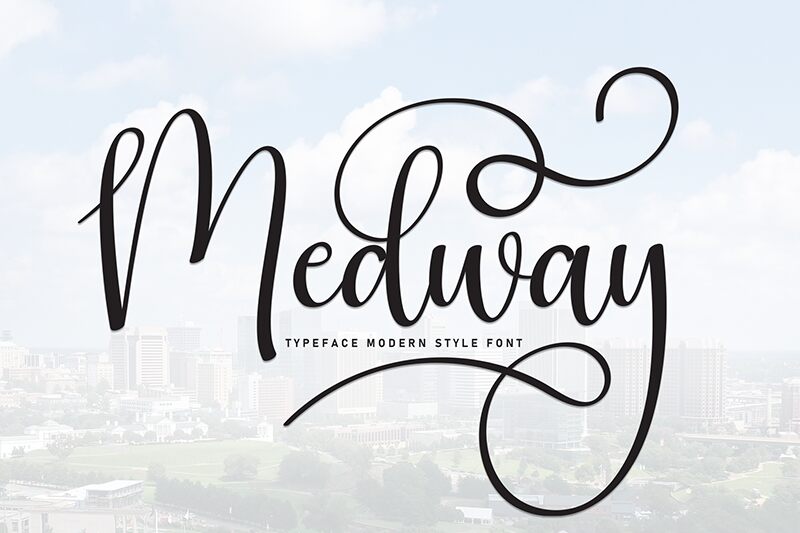
Medway
Medway font by Scratchones is a free handwritten font known for its elegant and flowing design. This contemporary script carries an expressive, personal touch that adds an artistic flair to any project. Its smooth lines and refined curves make it both approachable and sophisticated.
Use Medway for branding, logos, and packaging design, or apply it to posters, wedding invitations, social media graphics, blog headers, book covers, stationery design, apparel prints like T-shirts or tote bags—a true versatile masterpiece.